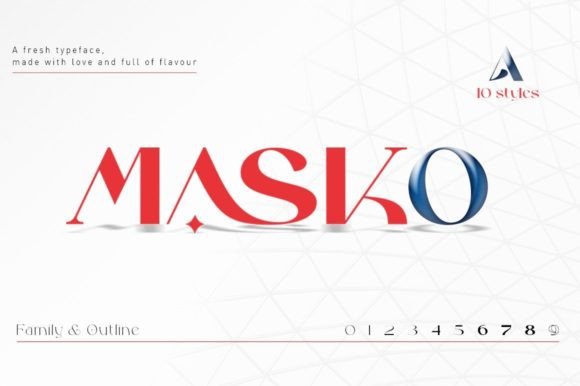
Masko Font
Download Masko Font for free! Created by Area Type and published by Cheskel Curry, this sans serif font family is perfect for adding a unique touch to your designs.
Welcome to a world of elegance and modernism, where the Masko Font family reigns supreme. This best font for family tree is a treasure chest of typographic excellence, ready to unlock the beauty in your designs. Each letter is a masterpiece, meticulously crafted to capture the essence of minimalist chic.
Picture your next book cover, a captivating canvas where the Masko Font weaves its magic. Imagine social media posts that ignite engagement with their clean and sophisticated aesthetic. And envision invitations that become cherished keepsakes, thanks to the timeless elegance of Masko. The possibilities are limitless, and the results are guaranteed to impress.
But it's not just about aesthetics. Masko is a practical powerhouse, PUA encoded for effortless access to its entire repertoire of glyphs and swashes. This means you can unleash your creativity without limits, adding those extra touches that elevate your designs to new heights.
Whether you're a seasoned designer or just starting your typographic journey, Masko will guide you every step of the way. Its intuitive nature makes it a joy to work with, ensuring that your designs flow effortlessly from concept to completion.
So, why settle for ordinary fonts when you can embrace the extraordinary? Choose the Masko Font family today and embark on a creative adventure where elegance, modernity, and practicality converge seamlessly. Your designs will thank you.